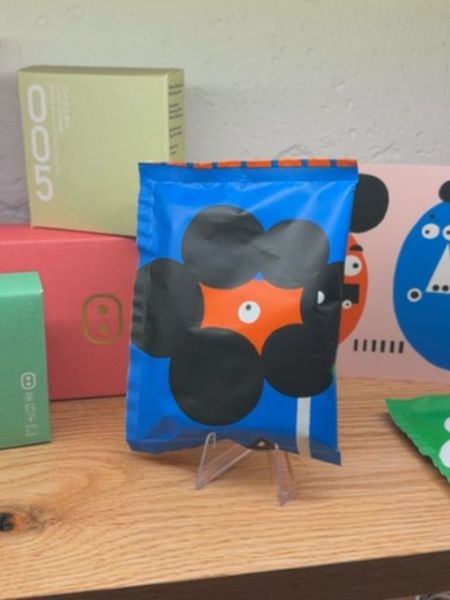
Naive Chips
Naive Chips are a snack product, offering a crispy and savory taste likely intended for casual snacking.
Typography
The typography on the packaging is minimalistic and modern, with sans-serif fonts likely used to convey a sense of simplicity and elegance. The numbers '005' on the green box and other textual elements appear to be clean and geometric, enhancing the modern artistic theme without distracting from the imagery.
Packaging
The packaging is vibrant, featuring a bold blue color with abstract black shapes, possibly resembling the look of the chips inside. The central design includes a bright orange shape with a single white dot, adding a playful and contemporary artistic appeal.
- Naive Chips are known for their artistic packaging.
- They are a gourmet snack brand.
- The brand emphasizes minimalistic and abstract design.